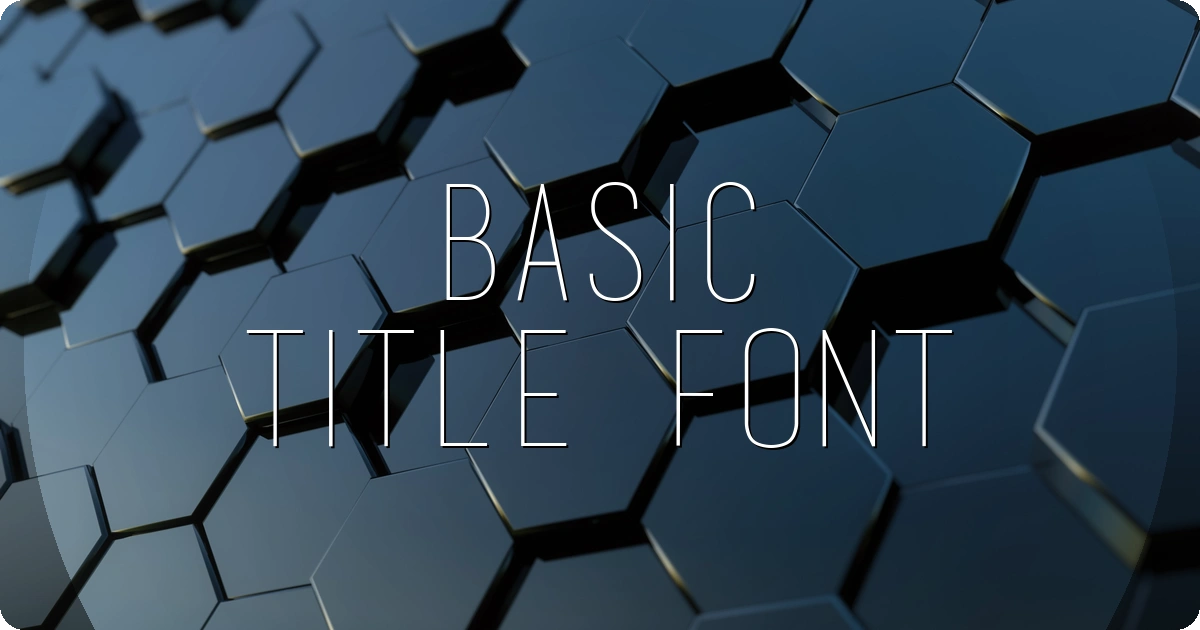
The Sans serif design has a unique alphabet set. Big John Slim Joe Font style has uppercase letters, numerals, and lowercase, it features unique characters.
This style is ideal for a variety of design applications. This typeface has a distinctive textural style, so the letter works well for postcard designs. It features 2048 digits per em and unique glyphs.
Reasons to Use Big John slim joe Font
The typeface offers a wide range of unusual applications that make it suited for various technical goals. This typeface works well for designing long paragraphs as well as comics.
As well as photographic design t-shirts and posters, it can also be used for designing symbols and making placards. Make exclusive designs by pairing them with aesthetic font.
| Name | Big John slim joe Font |
| Designer | Ion |
| Style | Sans serif |
Is Big John slim joe typeface easy to read?
This typeface’s significance is amazing. It has great readability and a flexible style that can be used for many different things.